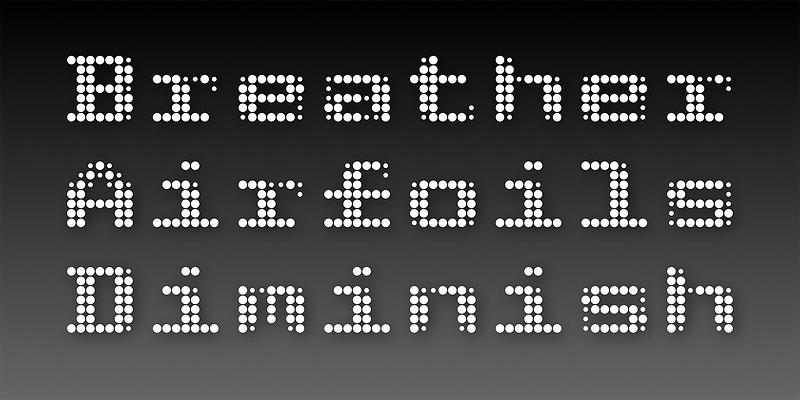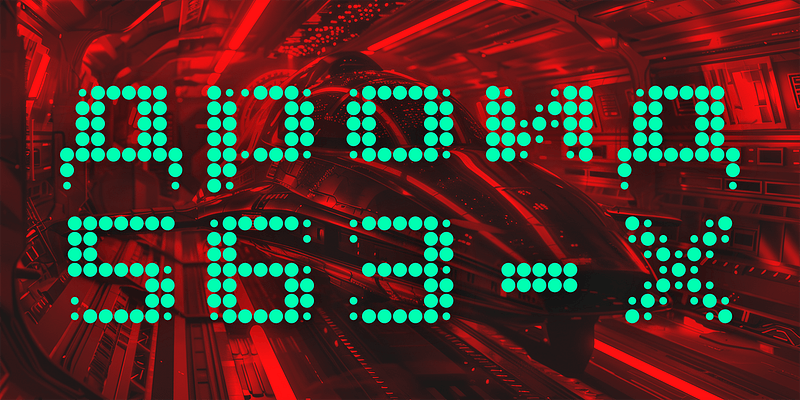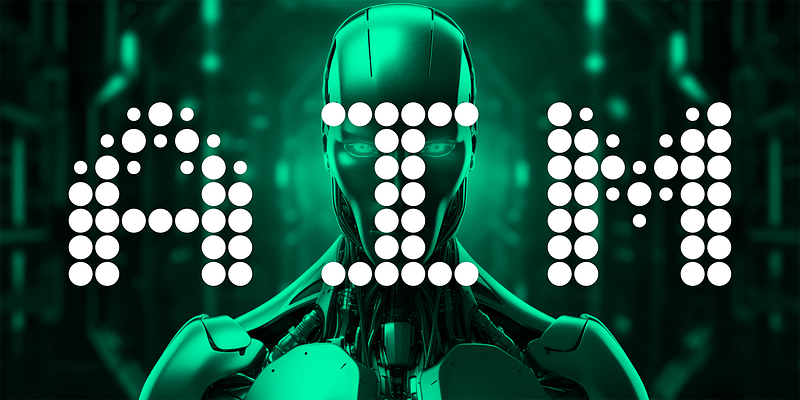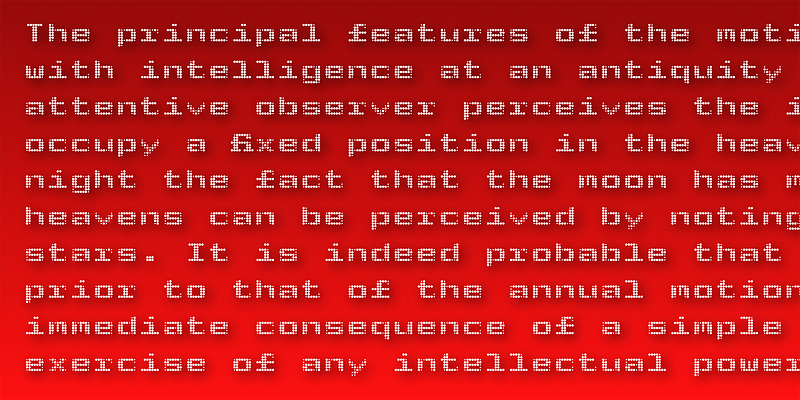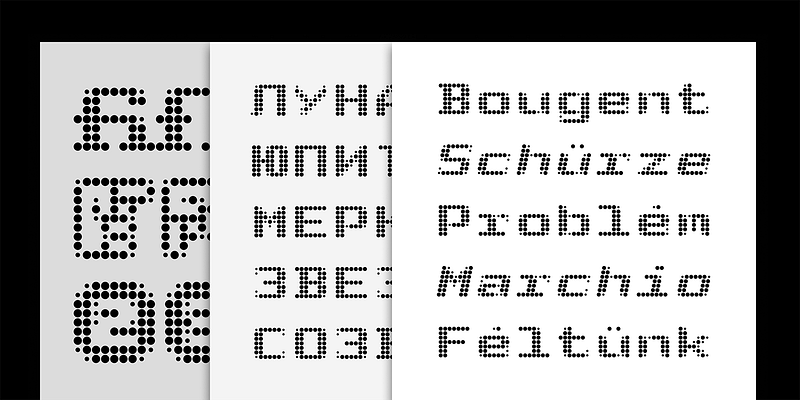
Archive Matrix is a forward-looking display typeface that reinterprets digital-era typography through a refined, contemporary lens. Built from a system of dot matrices, its letterforms emerge from a dynamic interplay of large and small elements, creating subtle contrast and a sense of flicker, as if text were phasing in and out on a screen. Rooted in a geometric, monospaced foundation, the design balances mathematical precision with visual texture, bridging early bitmap aesthetics and modern typographic clarity. The result is a voice that feels both nostalgic and futuristic—mechanical yet expressive, structured yet alive with movement. Ideal for display, branding, and digital-forward applications, Archive Matrix brings a distinctive sense of rhythm and technological character to contemporary design systems.